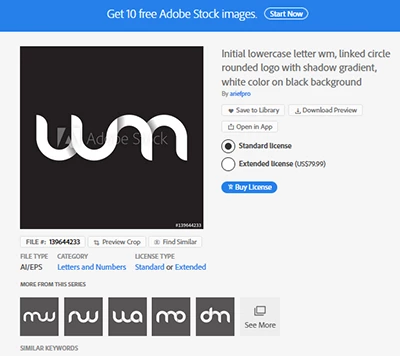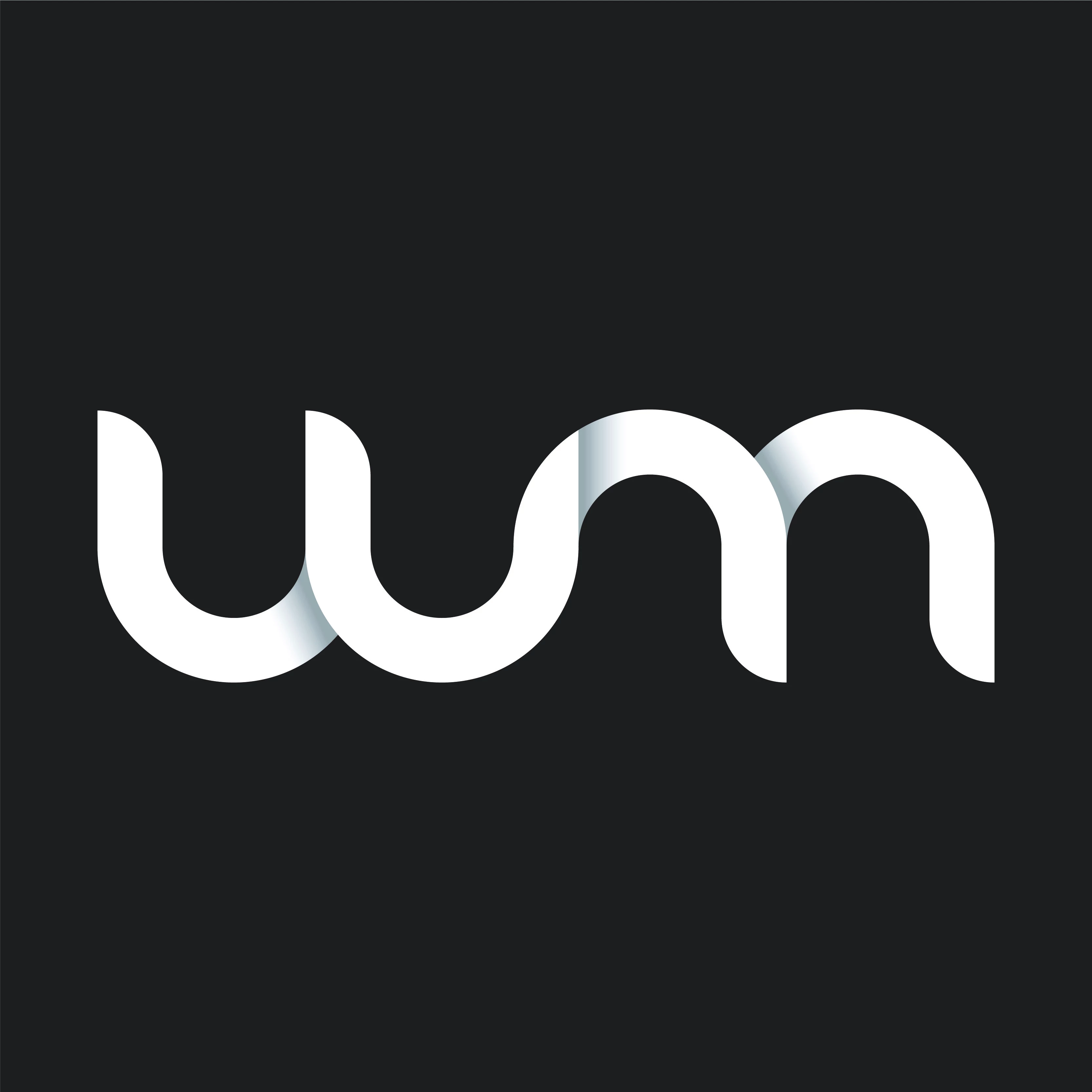
Hi, I'm looking for a matching font for the stock picture "Initial lowercase letter wm, linked circle outline logo with shadow gradient, white color on black background" File No .: 139644233 can someone help me what kind of schrieftart you would fit this picture? Thank you in advance
I don't think you'll find a perfect matching font as that logo looks like a custom drawn graphic. Or more accurately, a shape that has been duplicated and inverted.